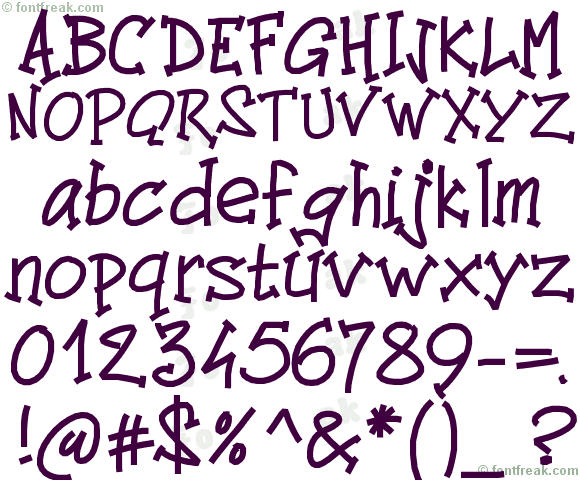
PWComics
PWComics, designed by Peax Webdesign, is a playful display font that embodies a comic book aesthetic. This font falls into the decorative category, characterized by its bold, expressive strokes that bring a sense of fun and creativity to various design projects. The stroke weight is notably thick, providing strong visibility and impact, while the slightly irregular shapes of the letters add a hand-drawn quality that enhances its whimsical charm. The spacing is well-balanced, ensuring legibility even in larger blocks of text, making it suitable for both headlines and smaller text.
This font is ideal for a range of applications, particularly in the entertainment and creative industries. It would work wonderfully on movie posters, capturing the attention of potential viewers with its vibrant, comic-like style. Additionally, PWComics can be effectively utilized in children's book illustrations, where its playful nature appeals to young audiences. For those in the gaming industry, this font can add a unique flair to promotional materials and websites. Restaurant menus aimed at a casual dining experience can also benefit from the friendly and approachable vibe of PWComics, making them more inviting to customers.
The target audience for this font includes graphic designers, content creators, and small business owners looking to inject a playful energy into their projects. Whether used for branding or promotional purposes, PWComics offers a distinctive voice that stands out in a crowded market.
In conclusion, the PWComics font free download is an excellent choice for anyone seeking to add a touch of creativity and liveliness to their designs. Its unique visual characteristics and versatility make it a valuable asset for those aiming to engage and entertain their audience effectively.